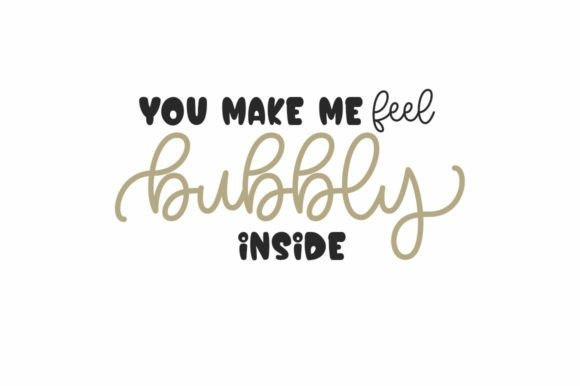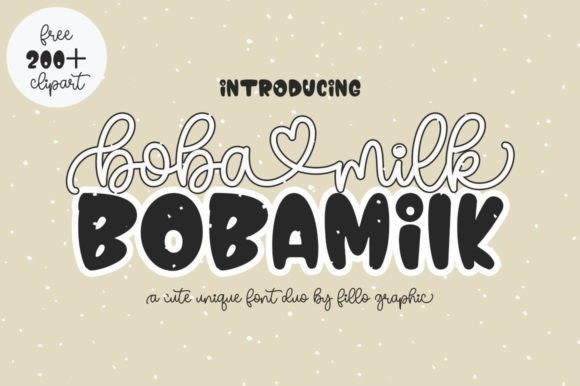
Boba Milk Font Duo
Boba Milk Font Duo, consisting of two fonts (script and display) designed to complement each other perfectly. Together or separately, these fonts are ideal for adding elegance and playfulness to your work. Boba Milk is PUA encoded, meaning you have easy access to all the glyphs and ligatures!